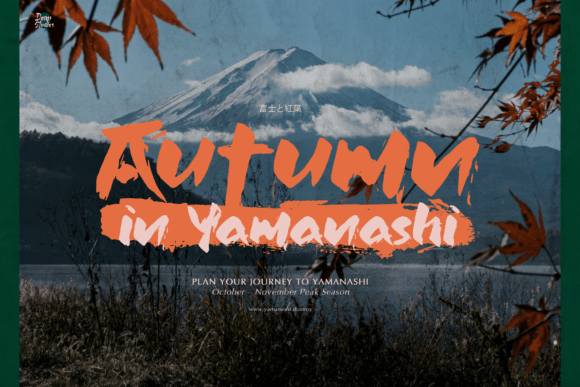
Jinsei Font: A Japanese Brush Font for Your Creative Projects
Jinsei Font is a unique and elegant Japanese brush font that can add a touch of sophistication and cultural flair to any design project. Whether you’re working on a logo, branding project, homeware design, product packaging, or any other creative endeavor, Jinsei Font is an excellent choice. In this article, we’ll explore the features and benefits of Jinsei Font and discuss how it can be used to enhance your designs.
What is Jinsei Font?
Jinsei Font is a Japanese brush font that is inspired by traditional Japanese calligraphy. It features bold, expressive brushstrokes that give it a distinctive and artistic look. The font is designed to be versatile and can be used for a wide range of projects, from logos and branding to homeware designs and product packaging.
Features of Jinsei Font
Jinsei Font has several features that make it an attractive choice for designers:
- Unique and elegant design: Jinsei Font has a distinctive and artistic look that sets it apart from other fonts.
- Versatile: The font can be used for a wide range of projects, from logos and branding to homeware designs and product packaging.
- High-quality: Jinsei Font is a high-quality font that is designed to produce crisp and clear results, even at small sizes.
Benefits of Using Jinsei Font
There are several benefits to using Jinsei Font in your design projects:
- Adds a touch of cultural flair: Jinsei Font is a great way to add a touch of Japanese culture to your designs, making them stand out from the crowd.
- Enhances branding and logos: The font’s unique and elegant design makes it an excellent choice for branding and logo design.
- Increases visual appeal: Jinsei Font’s bold and expressive brushstrokes add visual interest to any design, making it more engaging and attention-grabbing.
- Versatile: The font can be used for a wide range of projects, making it a great addition to any designer’s toolkit.
Project Ideas Using Jinsei Font
Jinsei Font is suitable for a wide range of projects, including:
- Logos and branding projects: The font’s unique and elegant design makes it an excellent choice for logos and branding projects.
- Homeware designs: Jinsei Font can be used to add a touch of cultural flair to homeware designs, such as ceramics, textiles, and other decorative items.
- Product packaging: The font can be used to create eye-catching and distinctive product packaging that stands out on store shelves.
- Mugs and ceramics: Jinsei Font can be used to add a personal touch to mugs, ceramics, and other household items.
- Quotes and posters: The font’s bold and expressive brushstrokes make it an excellent choice for quotes and posters.
- Shopping bags and t-shirts: Jinsei Font can be used to create eye-catching and distinctive shopping bags and t-shirts.
- Book covers and name cards: The font can be used to create elegant and sophisticated book covers and name cards.
- Invitation cards and greeting cards: Jinsei Font can be used to add a touch of cultural flair to invitation cards and greeting cards.
- Labels and photography: The font can be used to create distinctive and eye-catching labels and watermarks for photography.
Tips for Using Jinsei Font
Here are some tips for using Jinsei Font in your design projects:
- Use it sparingly: Jinsei Font is a bold and expressive font, so it’s best to use it sparingly to avoid overwhelming the design.
- Experiment with different colors: The font looks great in a variety of colors, so don’t be afraid to experiment and find the perfect color scheme for your design.
- Pair it with other fonts: Jinsei Font can be paired with other fonts to create a unique and visually appealing design.
- Pay attention to font size: Make sure to adjust the font size to ensure that it’s legible and easy to read.
Jinsei Font is a unique and elegant Japanese brush font that can add a touch of sophistication and cultural flair to any design project. Its versatility, high-quality design, and ease of use make it an excellent choice for designers. With its bold and expressive brushstrokes, Jinsei Font is sure to make your designs stand out from the crowd. Whether you’re working on a logo, branding project, homeware design, or any other creative endeavor, Jinsei Font is an excellent choice.